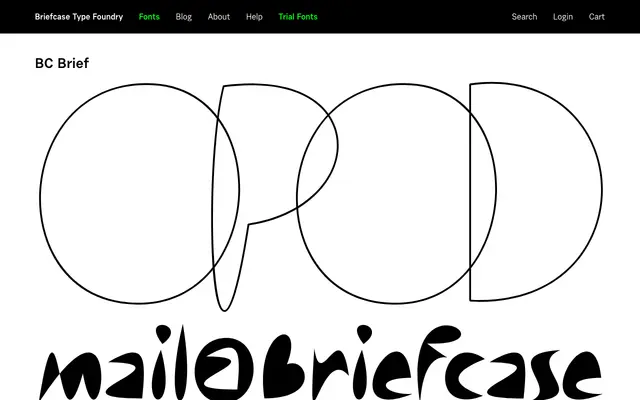
A sans-serif from Briefcase Type Foundry with limited publicly available detail on the page.
BC Brief is a sans-serif typeface from Briefcase Type Foundry, the Prague-based studio known for considered Central European type design. The scraped page yields minimal detail beyond the typeface name and a related font reference to BC Eric Machat. Further specifics on weights, language support and intended use would require a fuller page view.
The name and foundry context suggest a grotesque or neo-grotesque sans-serif in the Briefcase Type tradition, though limited page content prevents more specific classification.